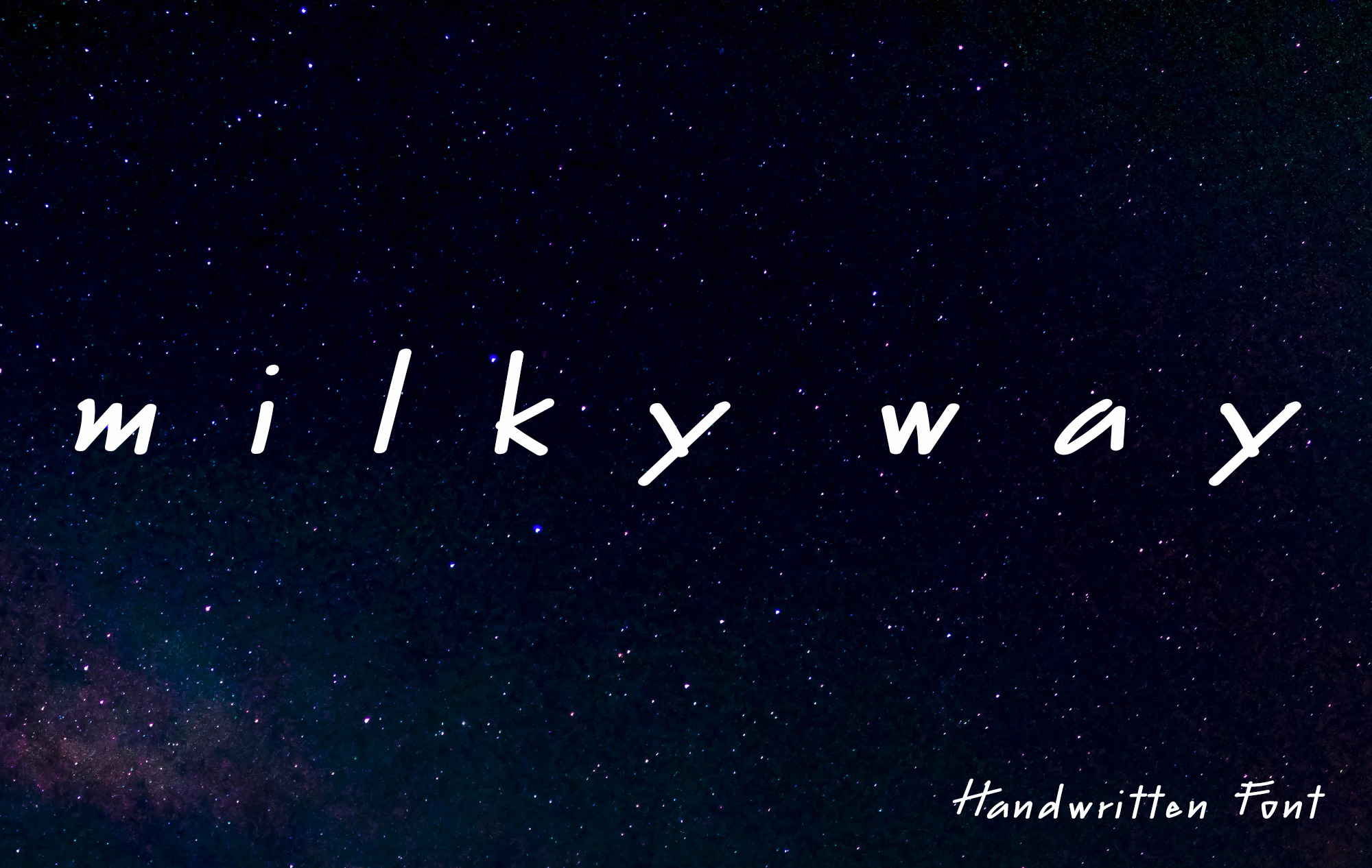
Milky Way font
Milky Way font Inspired by the starlight on the Milky Way at night Like a journey of stars from point to point Although time has passed ten thousand light years But for a small human being that looks up to the sky On this planet That light remained impenetrable.